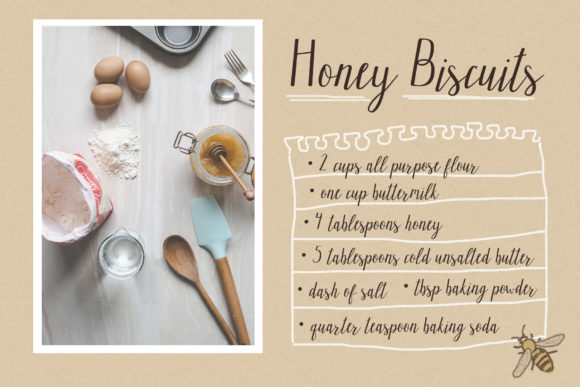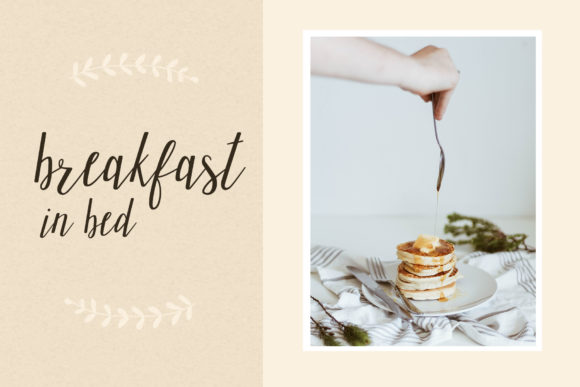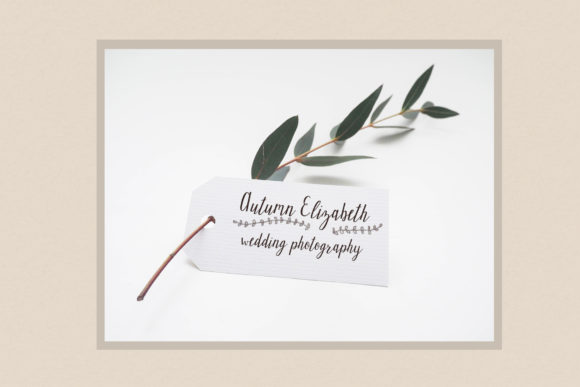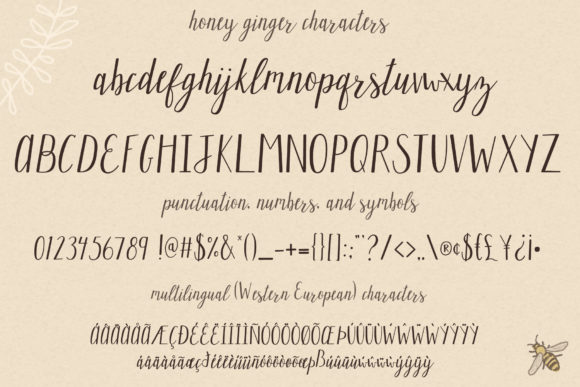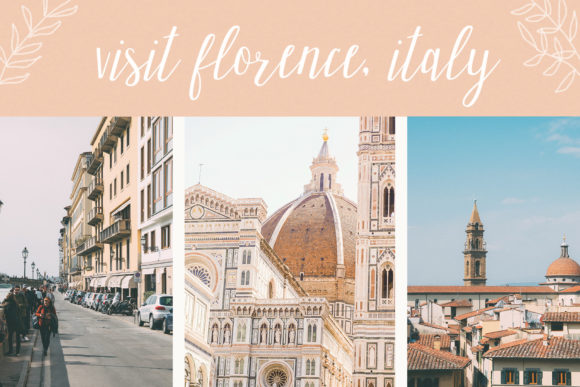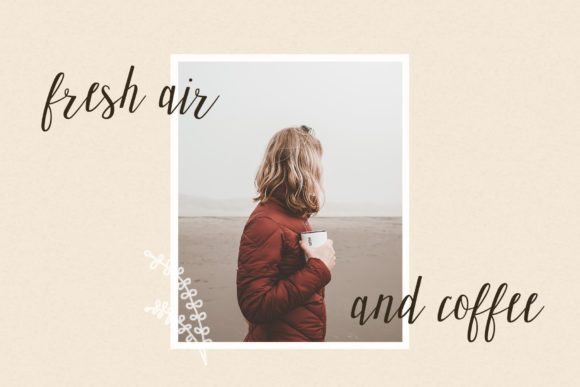
Unleash the Sweetness of Your Creativity
Have you ever stumbled upon a font that makes your design ideas come alive? For me, it’s the moment when the perfect typography aligns with the perfect color palette, and suddenly, a blank page transforms into a masterpiece. That’s exactly what the Honey Ginger Font can do for you.
This delightful font is designed to bring a lively twist to your creative projects, from blog posts and Instagram images to web design, invitations, and packaging. Its unique blend of warm and spicy tones makes it perfect for product packaging, branding projects, magazine covers, and social media. Whether you’re a seasoned designer or just starting out, the Honey Ginger Font is a valuable addition to your toolkit, offering endless possibilities for self-expression and creativity.
Honey Ginger Font Key Features
- Unique Characteristics: Honey Ginger Font features a distinctive blend of modern and traditional elements, with a warm and inviting tone that is perfect for creative and design projects.
Honey Ginger Font Review
I recently had the chance to work with the Honey Ginger font, and overall, I’m quite pleased with the experience. Here are some of the things that really stood out to me:
- ✨ Unique Character: Honey Ginger has a distinctive, hand-crafted feel that sets it apart from more generic fonts.
- ✨ Versatility: This font works well in a variety of contexts, from headings and titles to body text and captions.
- ✨ Friendly, Approachable: The Honey Ginger font has a warm, inviting personality that makes it perfect for creative projects and personal branding.
- ⚠️ Limited Character Set: Honey Ginger is a relatively new font, and its character set is still a bit limited compared to more established fonts.
- ⚠️ May Not Suit Formal Projects: While Honey Ginger is great for creative and personal projects, it may not be the best choice for formal, professional work or documents that require a more traditional look.
Overall, I’d give the Honey Ginger font 4 out of 5 stars. It’s a great choice for designers and creatives who are looking for a unique, friendly font that can add some personality to their projects. Just be aware of its limitations, and use it in contexts where it will shine.
Tips for Getting the Most Out of the Honey Ginger Font
Use the Honey Ginger font for creative and artistic projects, such as:
1. Food and beverage branding.
2. Beauty and wellness marketing.
3. Travel and hospitality branding.
The Honey Ginger font is ideal for:
1. Headlines and titles.
2. Brand logos and icons.
3. Menus and packaging design.
Alternatives to Honey Ginger Font
Great Vibes is a modern, elegant script font perfect for creating a warm and inviting atmosphere. It features flowing connections between letters, making it ideal for titles, headings, and quotes. Great Vibes is a great alternative to Honey Ginger Font when you want to convey a sense of luxury and sophistication.
Comparison: Great Vibes has a more refined and polished look compared to Honey Ginger Font, making it suitable for high-end designs and branding.
Carolyna Pro is a modern script font with a touch of elegance and sophistication. It features a flowing and connected feel, making it perfect for titles, headings, and body text. Carolyna Pro is a great alternative to Honey Ginger Font when you want to create a sense of drama and luxury.
Comparison: Carolyna Pro has a more dramatic and connected feel compared to Honey Ginger Font, making it suitable for designs that require a sense of opulence and grandeur.